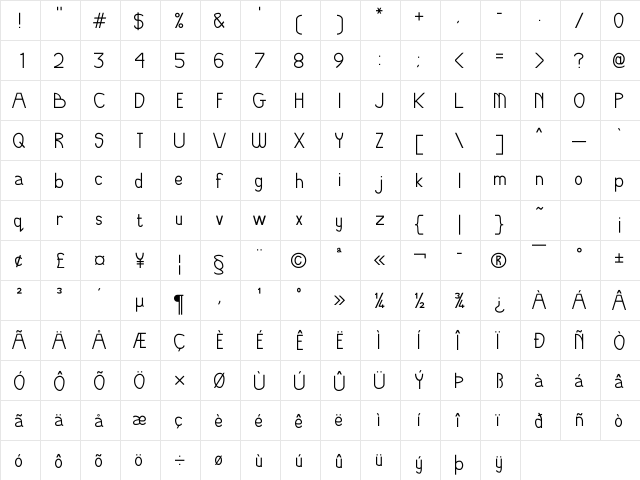
Odd Modern Regular Font Preview
Odd Modern Regular
Design Context for Odd Modern Typeface
Odd Modern offers clean, dependable letterforms without strong stylistic allegiance, making it a practical choice for designers who need flexibility.
Pro Tip: Pair Odd Modern with a font of contrasting weight or personality to build a more expressive typographic hierarchy.